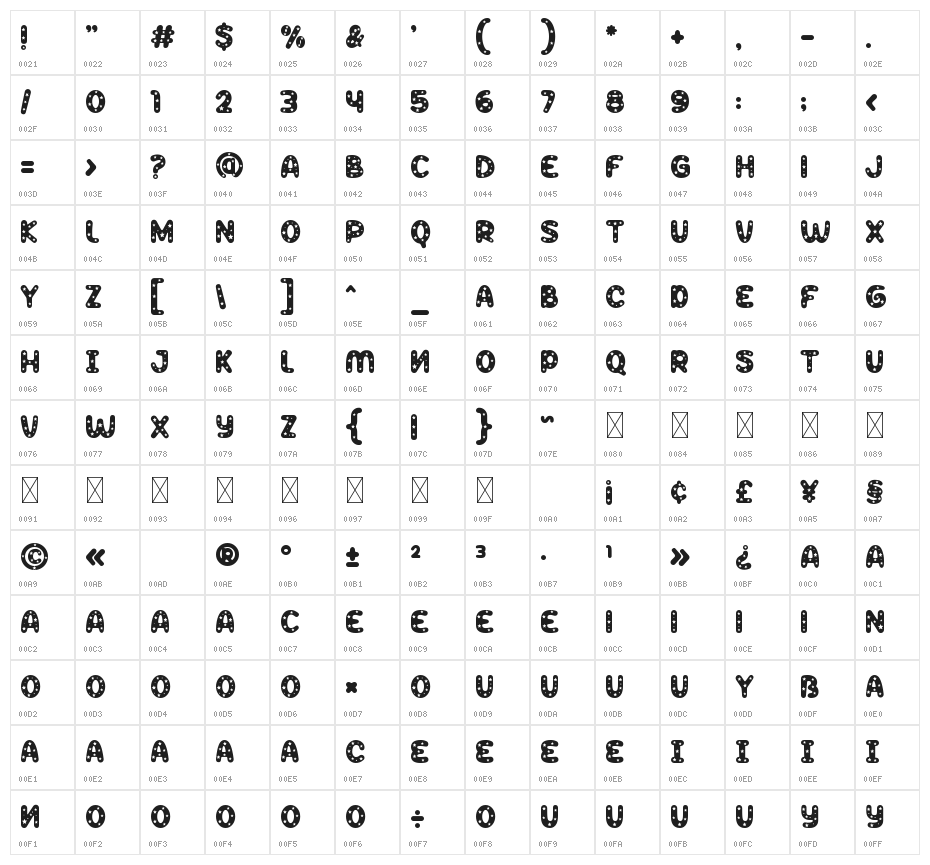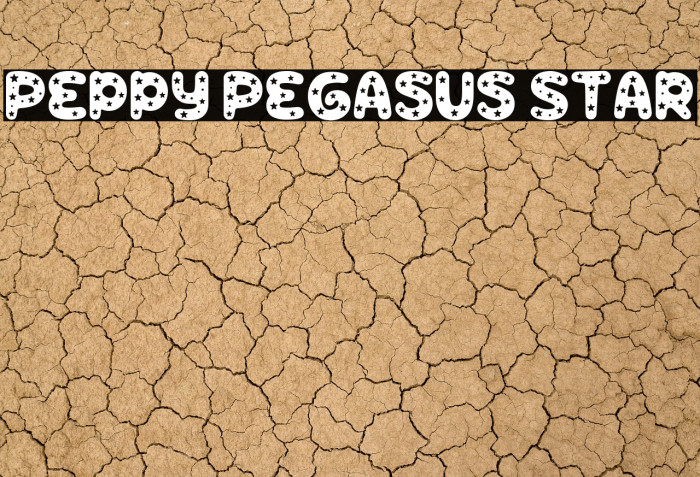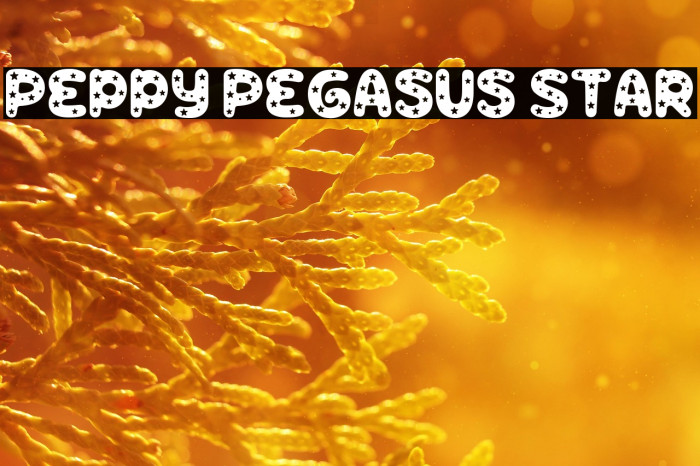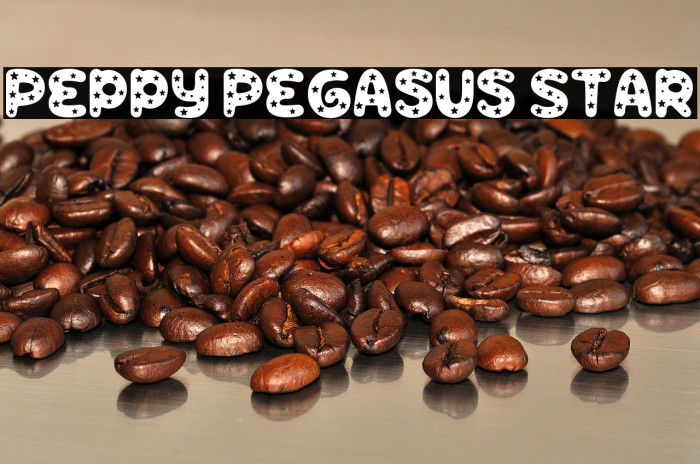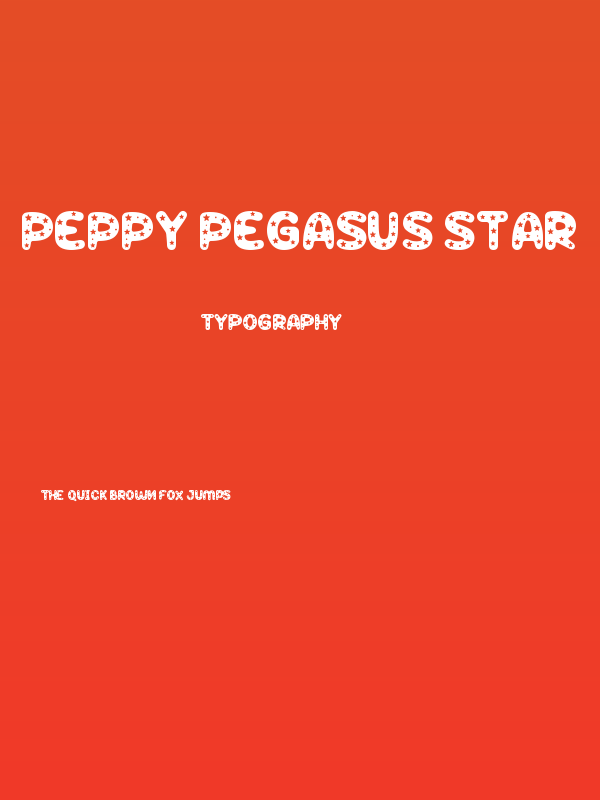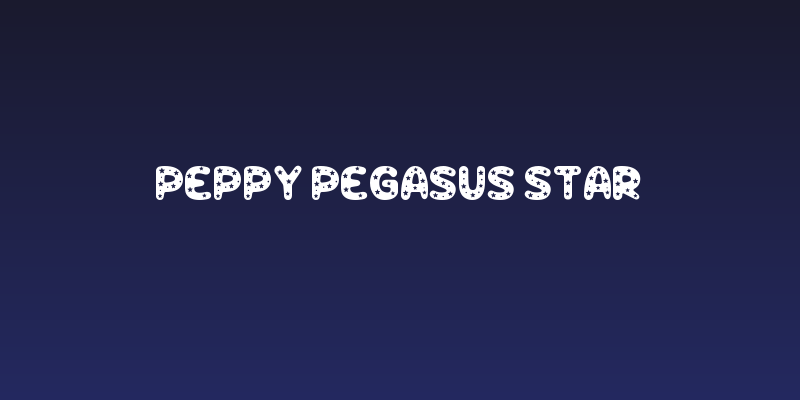
Peppy Pegasus Star Font
Peppy Pegasus Star Description
This playful and whimsical font features bold, rounded characters filled with star patterns, creating a lively and energetic appearance. The letters are evenly spaced, maintaining a consistent flow across both uppercase and lowercase alphabets. The numbers and special characters follow the same design, ensuring a cohesive look. The star-filled design adds a touch of magic and fantasy, making it ideal for projects that require a fun and imaginative style. The font's thick strokes and decorative elements make it stand out, perfect for capturing attention in various creative applications.
| Overall Style | Playful, Whimsical, Decorative |
| Proposed Projects | Ideal for children's books, party invitations, playful branding, and fantasy-themed projects. |